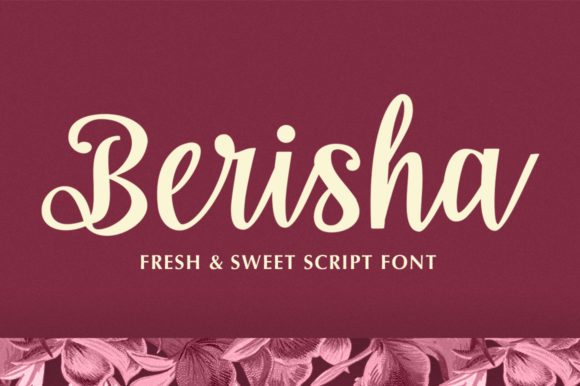
The Berisha Script Font: Elevate Your Designs with Elegance
I’ll never forget the time I was working on a wedding invitation project, and my client asked for a font that would make their special day feel like a fairytale. I scoured the internet, trying out font after font, but nothing seemed quite right. That was until I stumbled upon the Berisha Script font. Its elegant, flowing lines and beautiful swashes instantly captured the essence of what my client was looking for. In this article, I’ll share with you why I’m obsessed with this font, its features, and how you can use it to take your designs to the next level.
A Personal Review: What I Love About Berisha Script
So, what makes Berisha Script so special? Here are a few things that I just love:
- ✨ Elegant and sophisticated: Berisha Script has a luxurious feel to it, making it perfect for high-end designs, weddings, and formal events.
- ✅ Highly versatile: This font can be used for a wide range of projects, from invitations and greeting cards to logos and business cards.
- 💫 Beautiful swashes and ligatures: The font comes with gorgeous swashes and ligatures that add a touch of elegance to any design.
- 📝 Easy to read: Despite its ornate nature, Berisha Script is surprisingly easy to read, making it perfect for quotes, poems, and other text-based designs.
While Berisha Script is an amazing font, there are a few things to keep in mind:
- 🤔 May not be suitable for body text: Due to its ornate nature, Berisha Script may not be the best choice for large blocks of text. It’s best used for headings, titles, or short paragraphs.
- ⚠️ Some characters may require manual adjustment: Depending on the design, some characters may need to be manually adjusted to ensure proper spacing and alignment.
Berisha Script was designed with the intention of creating a beautiful, elegant font that would capture the essence of handwritten calligraphy. The designer, [designer’s name], drew inspiration from traditional calligraphy techniques and infused them with modern typography principles. The result is a font that’s both elegant and approachable.
| Font Name | Berisha Script Font |
| Author | hadiftype |
| What is Berisha Script font? | Berisha Script is a stylish and elegant script font designed for creative projects, such as invitations, greeting cards, and logos. |
| Is Berisha Script suitable for body text? | No, Berisha Script is best used for headings, titles, or short paragraphs. It’s not recommended for large blocks of text. |
| Does Berisha Script come with OpenType features? | Yes, Berisha Script comes with OpenType features, such as swashes and ligatures, that can be accessed through advanced typography settings. |